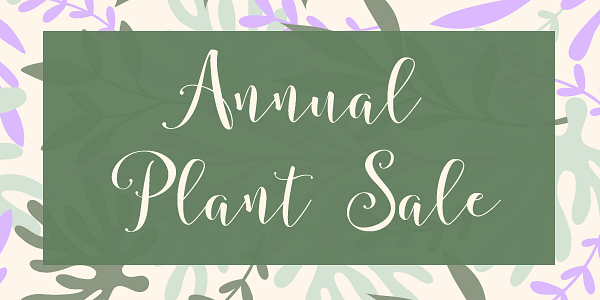
Storybook Font Free Download is a whimsical and charming typeface that brings to mind the classic style of children's books and fairy tales. Its soft curves and playful letterforms make it perfect for projects that need a touch of magic, innocence, or nostalgia. Whether you're working on book covers, posters, invitations, or any design aimed at a younger audience, Storybook Font adds a delightful, storybook feel to your work.
The font’s friendly and approachable design makes it versatile for both print and digital projects, ensuring it works well in headings, body text, and even larger display formats. Its nostalgic charm is perfect for any design that aims to evoke the sense of wonder found in timeless tales.
Incorporate Storybook Font Free Download into your next project for a whimsical, enchanting touch that brings your designs to life.